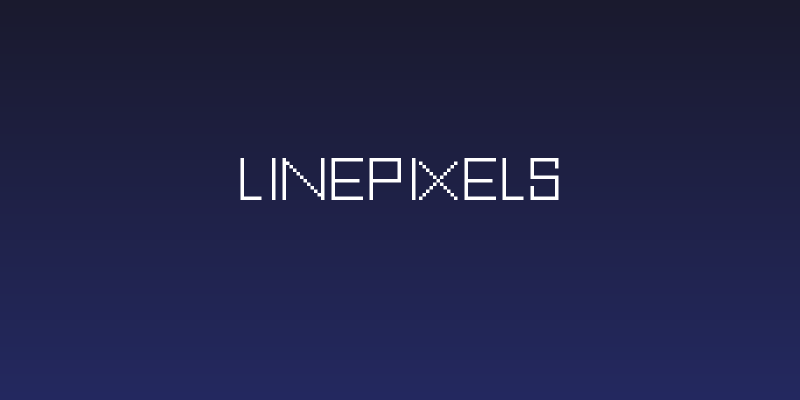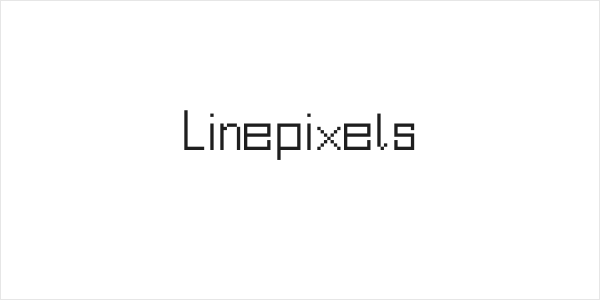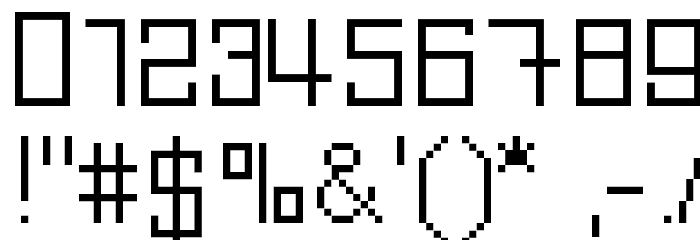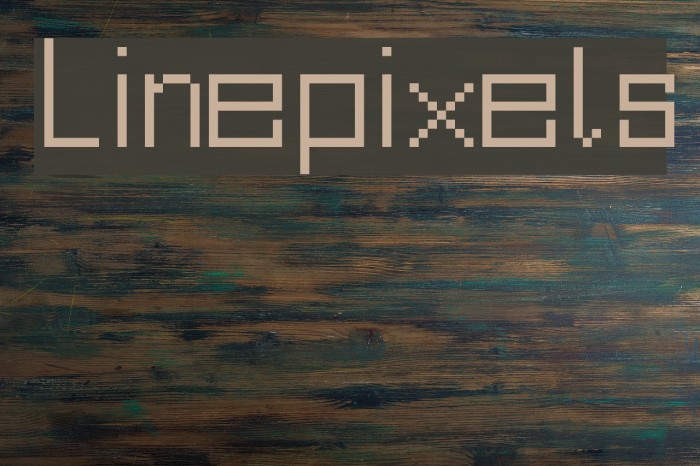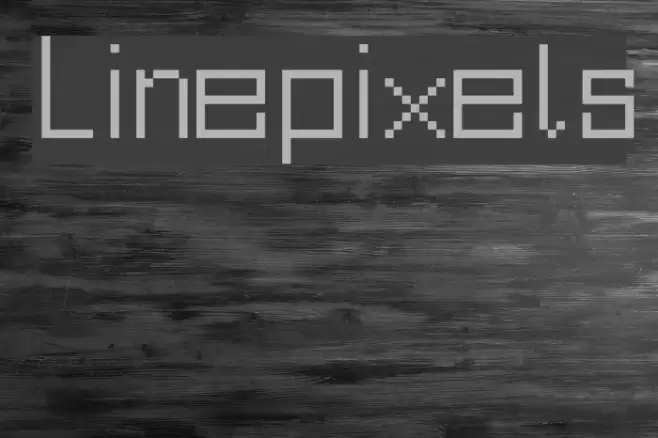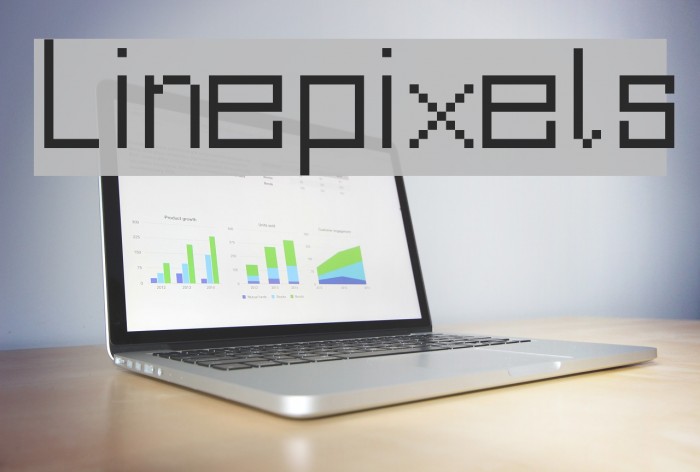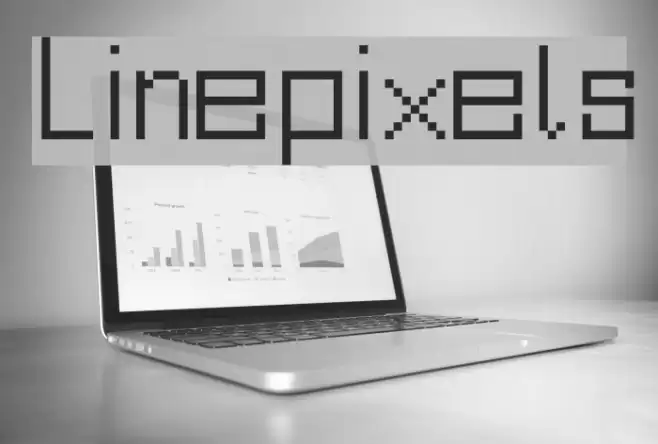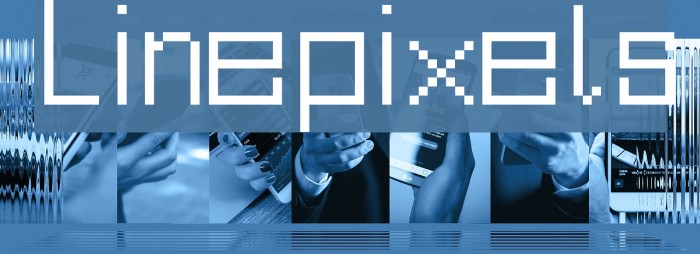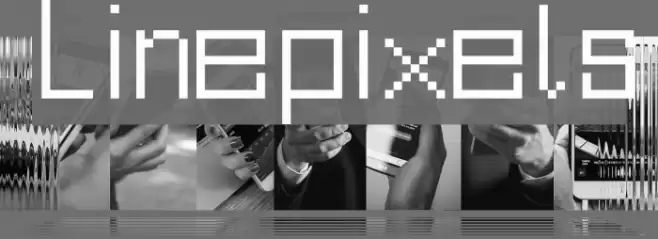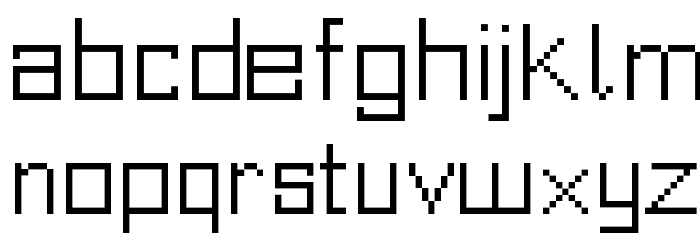
Linepixels Font
Linepixels Description
This font features a distinct pixelated style, reminiscent of early digital displays and retro video games. Each character is constructed with a grid-like precision, giving it a blocky and geometric appearance. The uppercase and lowercase letters maintain a uniform height, contributing to a cohesive and structured look. The numerals and special characters follow the same pixelated design, ensuring consistency across all glyphs. This font's simplicity and clarity make it highly legible, even at smaller sizes. Its nostalgic aesthetic is ideal for projects that aim to evoke a sense of the digital past or a retro-futuristic vibe.
| Overall Style | Retro, Digital |
| Use Case | Headlines, Logos, Digital displays |
| Proposed Projects | Ideal for video game design, digital art projects, retro-themed posters, and tech-related branding. |